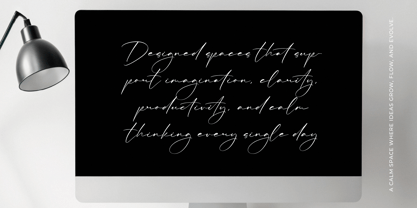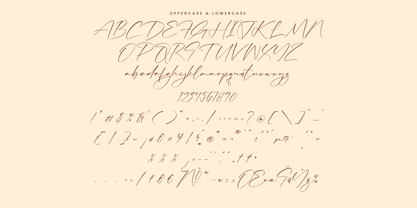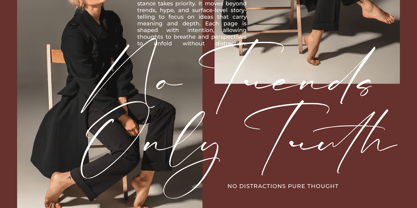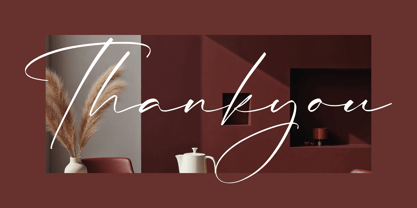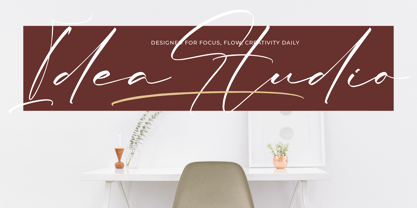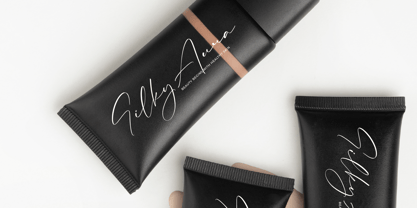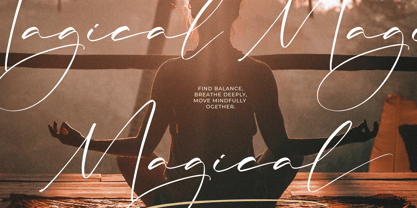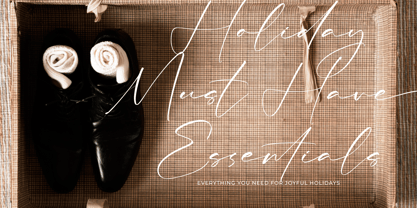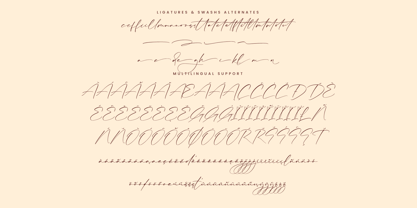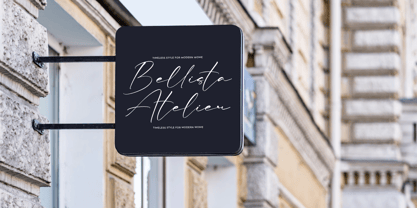
Magical Delight
Magical Delight is a modern signature typeface that exudes style, elegance, and expressiveness. Designed to evoke the essence of effortless handwriting with a refined contemporary touch, this font offers a clean yet personal aesthetic that balances professionalism with artistry. Featuring smooth strokes and a natural signature flow, Magical Delight is ideal for branding, logos, personal signatures, fashion editorials, social media content, luxury packaging, and creative projects that demand a modern handwritten look. Its well-balanced structure ensures excellent readability while preserving a distinctive, high-end appearance. Magical Delight shines both independently and when paired with minimalist sans-serif or classic serif fonts, making it a versatile option for digital and print designs. Perfect for signature logos, personal branding, fashion and lifestyle projects, luxury packaging, social media graphics, editorial design, quotes, and modern handwritten layouts.
Designer: Dimas Alif Maulana
Foundry: Integritype